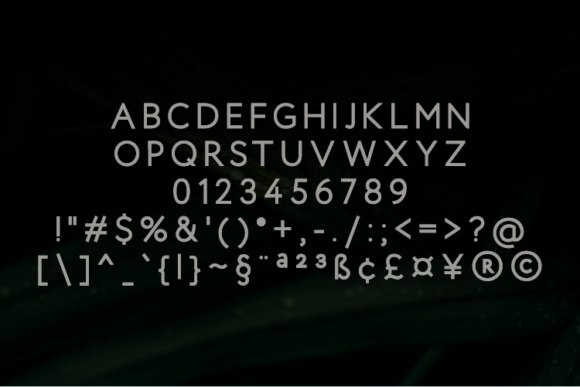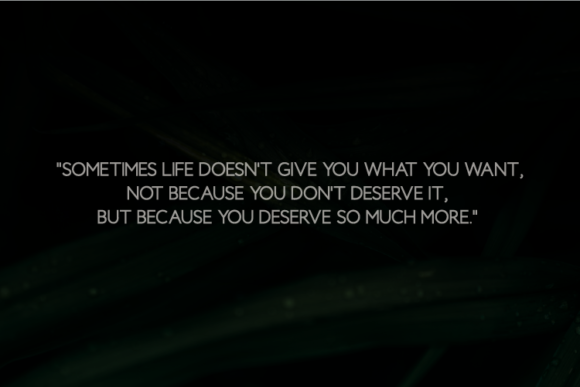
Introduction to Nortwelly Font
Nortwelly is a simple and elegant sans serif.
Key Features of Nortwelly Font
Why Choose Nortwelly Font?
Nortwelly Font offers exceptional quality and versatility, making it a valuable addition to your design toolkit. Whether you’re creating for personal projects or commercial use, Nortwelly Font delivers professional results.